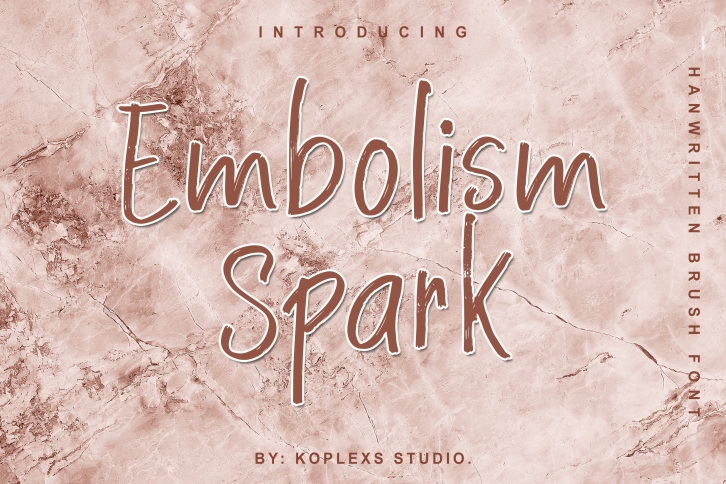
Embolism Spark is a trendy and unique font with an authentic style. It was designed by Koplexs Studio and it's a great choice for creative people who need such a font. It was released on January 8, 2022 and the file size is 18.51 MB. Embolism Spark will add an organic vibe to any design idea!